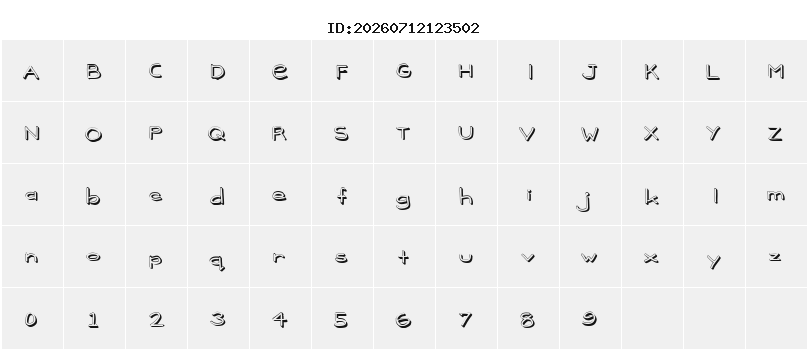
• Font Name: MadisonShadowed
• Designer: [typologic]
• Manufacturer: [typologic]
About MadisonShadowed.ttf
MadisonShadowed.ttf is a modern, elegant sans-serif font designed for ultimate readability and visual harmony. Perfect for branding, headlines, web design, and print materials.